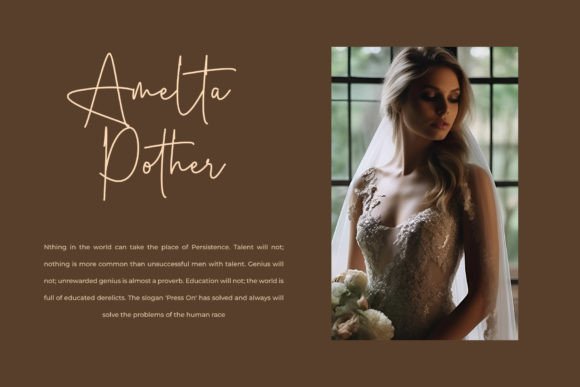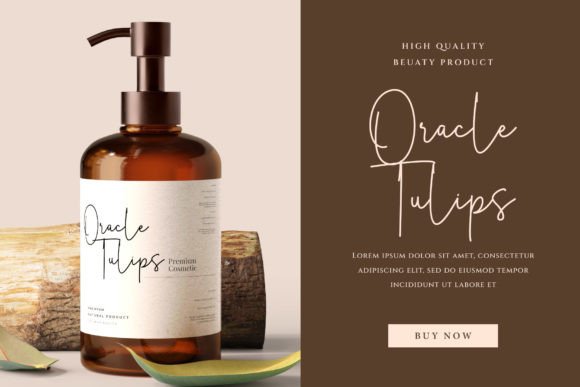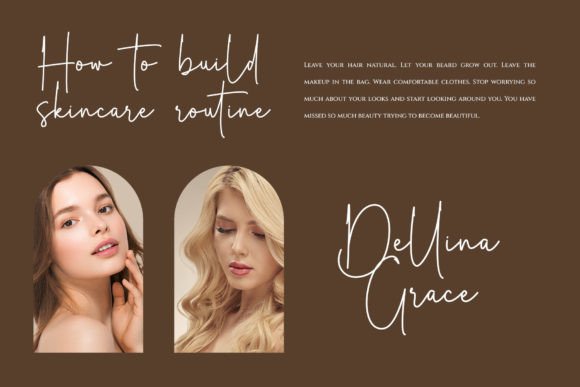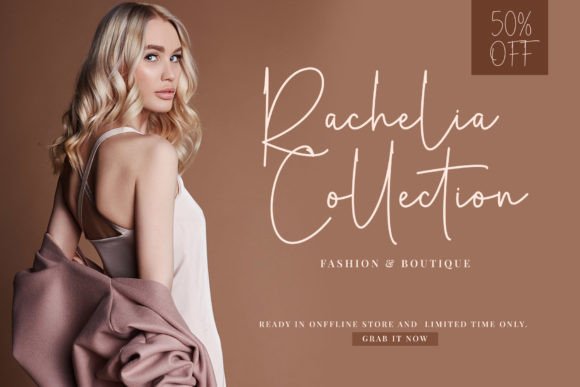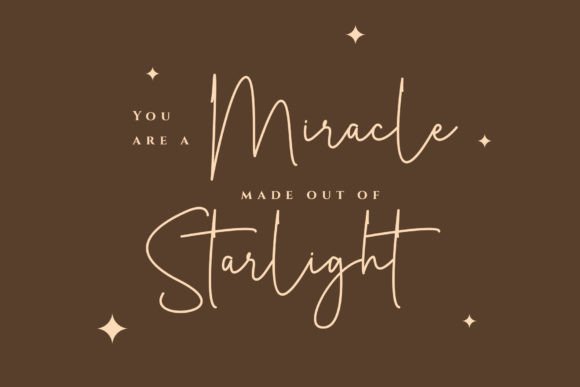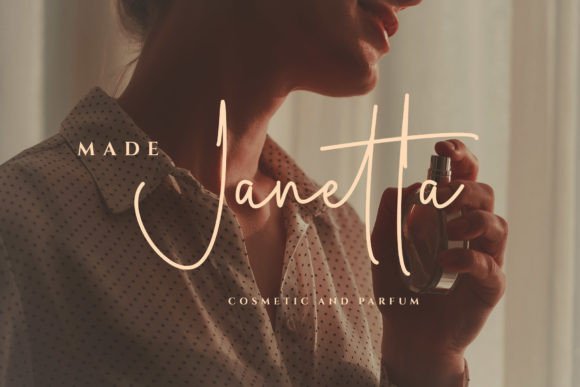
Athaliah Font: Elevate Your Designs with Elegance and Sophistication
In the world of typography, few fonts manage to strike a balance between classic elegance and modern flair. Athaliah Font is one such exquisite handwritten font that has been masterfully designed to become a true favorite among designers and crafters. With its classy calligraphic influences and contemporary feel, Athaliah is the perfect choice for those looking to add a touch of sophistication to their projects.
The Story Behind Athaliah Font
Athaliah Font is a beautiful example of modern calligraphy, with each letter meticulously crafted to convey a sense of elegance and refinement. The font’s design is inspired by traditional calligraphy, yet it has been carefully adapted to feel fresh and contemporary. This unique blend of old and new makes Athaliah a versatile font that can be used in a wide range of design applications, from wedding invitations and branding materials to digital products and craft projects.
Key Features of Athaliah Font
- Exquisite Handwritten Design: Athaliah Font boasts a beautiful, handwritten design that is both elegant and sophisticated.
- Classy Calligraphic Influences: The font’s calligraphic influences add a touch of refinement and luxury to any design.
- Contemporary and Fresh: Despite its classic roots, Athaliah Font feels modern and fresh, making it perfect for designers looking for a font that will stand out.
- Highly Versatile: Athaliah Font can be used in a wide range of design applications, from print materials to digital products.
Why Choose Athaliah Font?
There are many reasons why Athaliah Font has become a favorite among designers and crafters. Here are just a few:
- Elegance and Sophistication: Athaliah Font adds a touch of elegance and sophistication to any design, making it perfect for high-end branding and luxury products.
- Easy to Read: Despite its ornate design, Athaliah Font is highly legible, making it perfect for use in body text and headlines.
- Unique and Memorable: Athaliah Font’s unique design makes it highly memorable, which can help your brand stand out in a crowded market.
Using Athaliah Font in Your Designs
Athaliah Font is highly versatile and can be used in a wide range of design applications. Here are a few ideas to get you started:
- Wedding Invitations and Stationery: Athaliah Font is perfect for wedding invitations, save-the-date cards, and other stationery.
- Branding and Packaging: Use Athaliah Font to add a touch of elegance and sophistication to your branding and packaging materials.
- Digital Products: Athaliah Font can be used in digital products such as ebooks, workbooks, and courses.
- Craft Projects: Athaliah Font is perfect for craft projects such as handmade cards, scrapbooking, and journaling.
Tips for Getting the Most Out of Athaliah Font
Here are a few tips for getting the most out of Athaliah Font:
- Use it Sparingly: Athaliah Font is a statement font, so use it sparingly to add emphasis and elegance to your designs.
- Experiment with Pairings: Try pairing Athaliah Font with other fonts to create a unique and memorable design.
- Pay Attention to Size and Scale: Make sure to adjust the size and scale of Athaliah Font to suit your design needs.
Athaliah Font is an exquisite handwritten font that is sure to become a favorite among designers and crafters. With its classy calligraphic influences and contemporary feel, Athaliah is the perfect choice for those looking to add a touch of elegance and sophistication to their projects. Whether you’re designing wedding invitations, branding materials, or digital products, Athaliah Font is sure to elevate your designs to the highest levels.